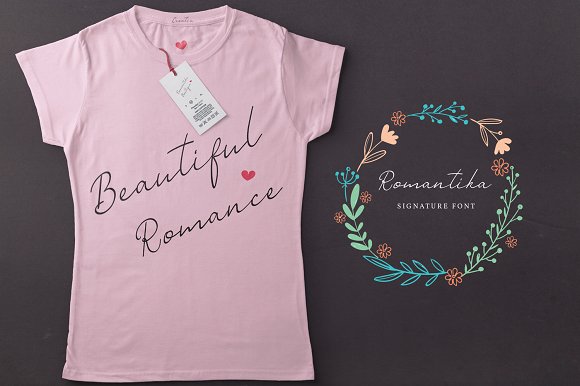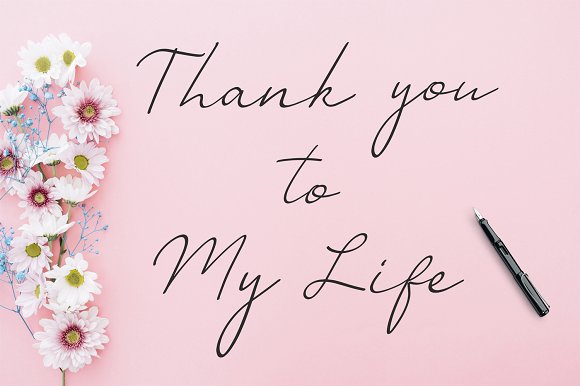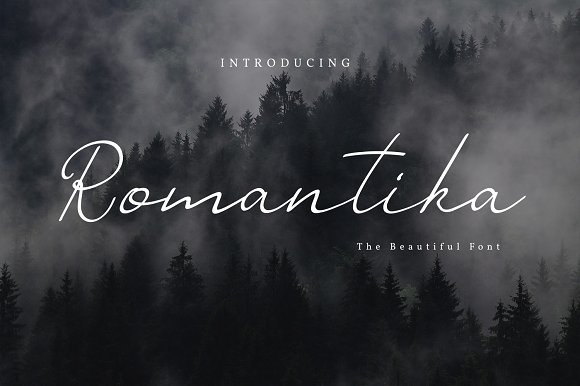
Romantika Font
Romantika” is a signature calligraphy font with ethereal, adorable touch. It is perfect for branding, event invites, lovely Instagram posts. “Romantika” includes full set of charming uppercase and lowercase international letters, numerals, punctuation, and giving realistic hand-lettered style.